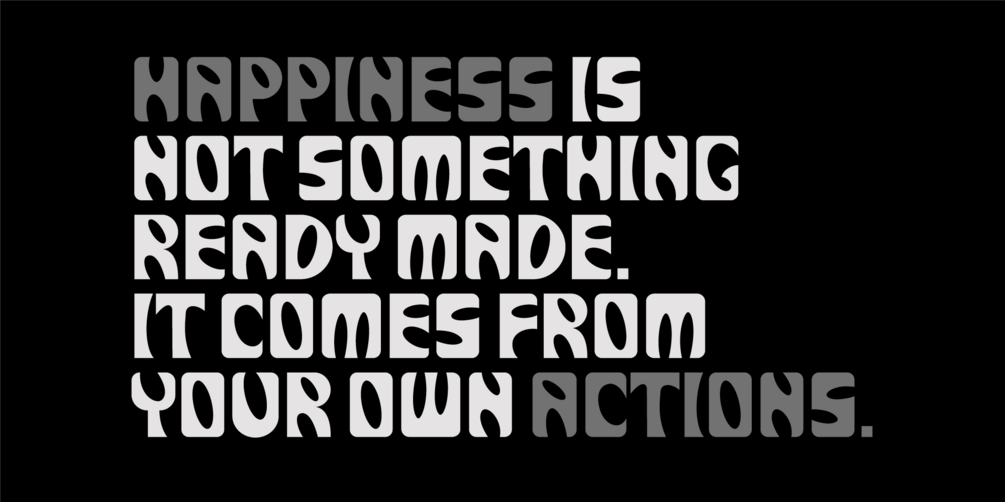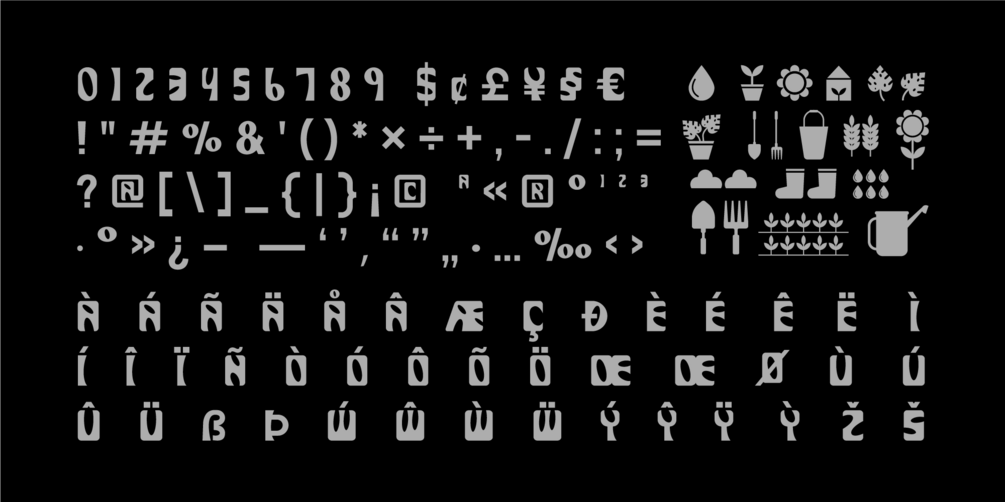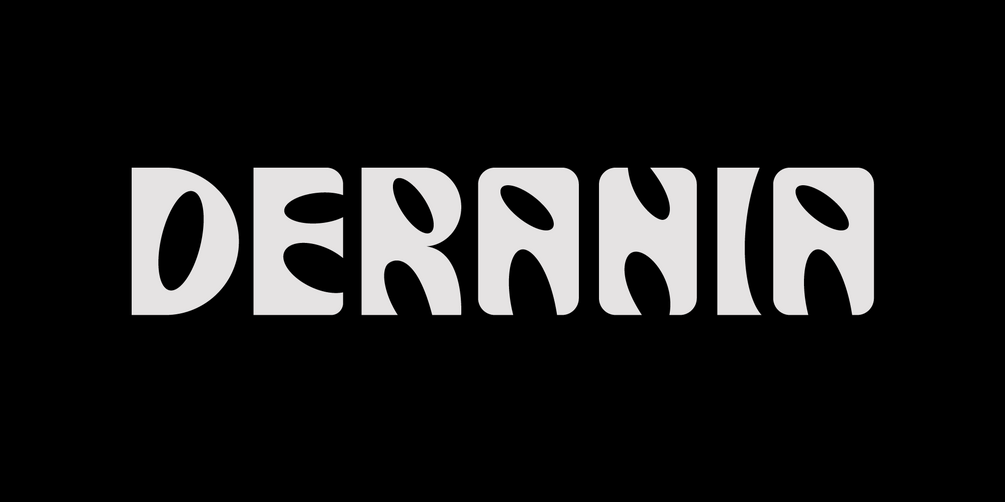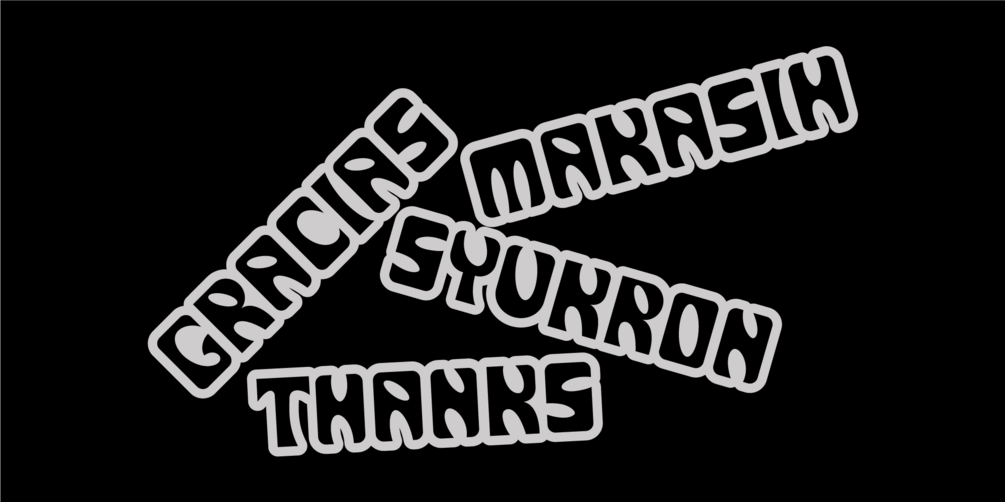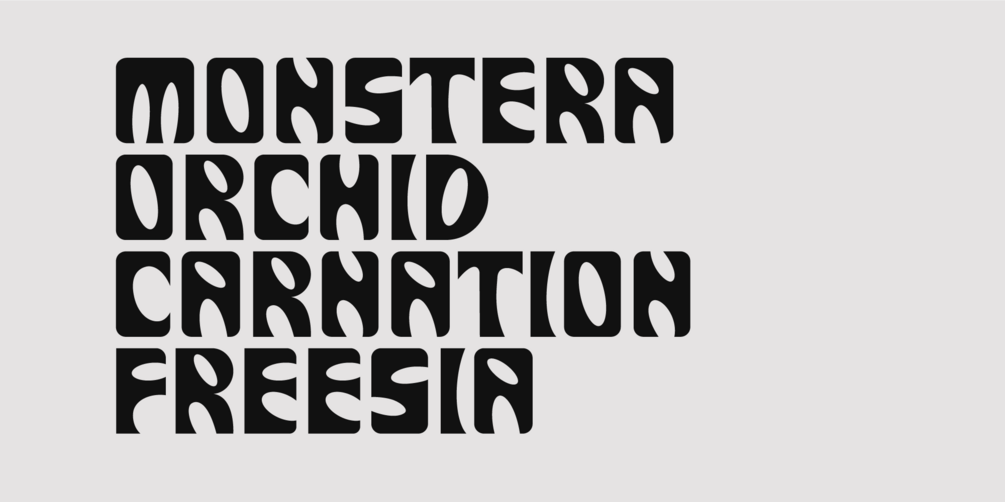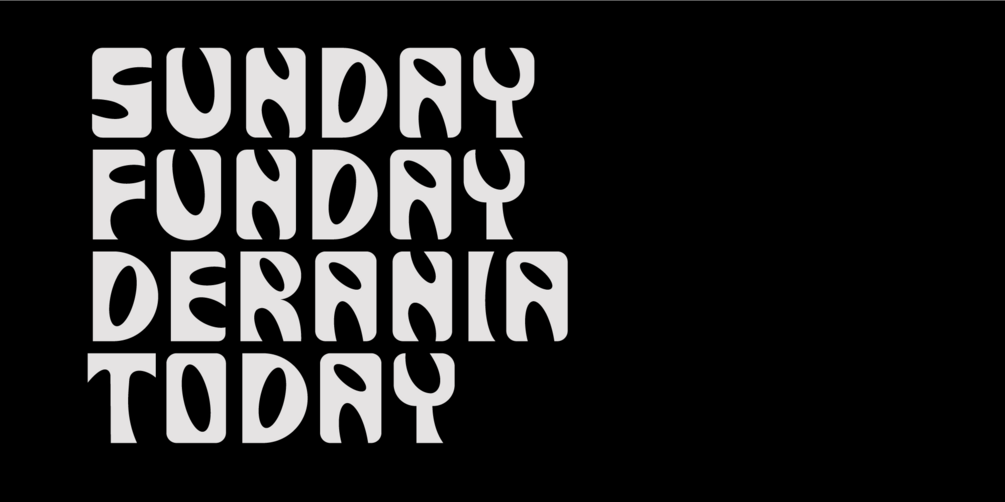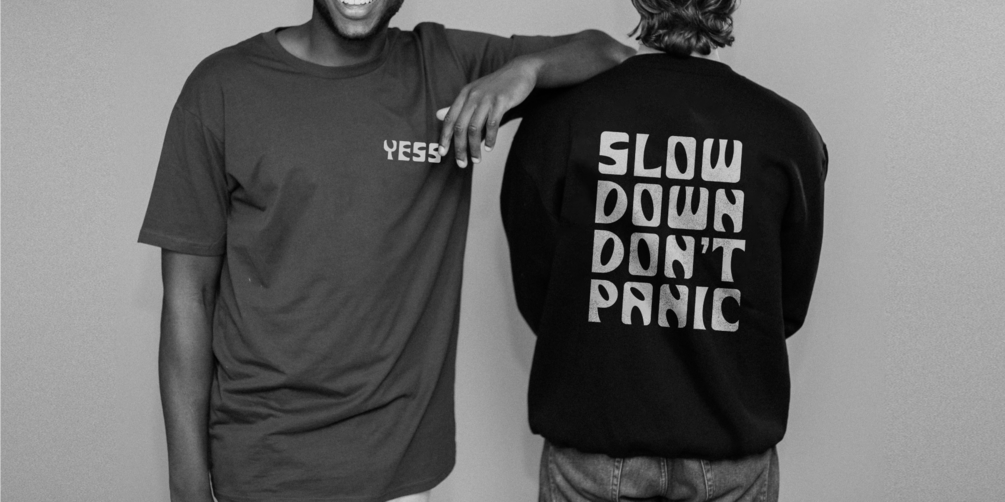
DERANIA
Derania is a typeface that is inspired by the shape of the monstera leaf, Derania is made with fun and bold fonts
- Numeric/Uppercase/Symbol/Icon
- And some multilingual